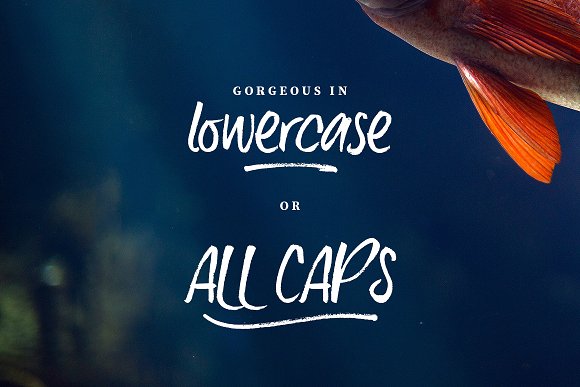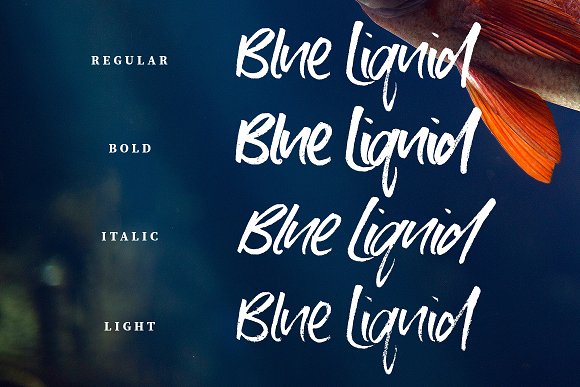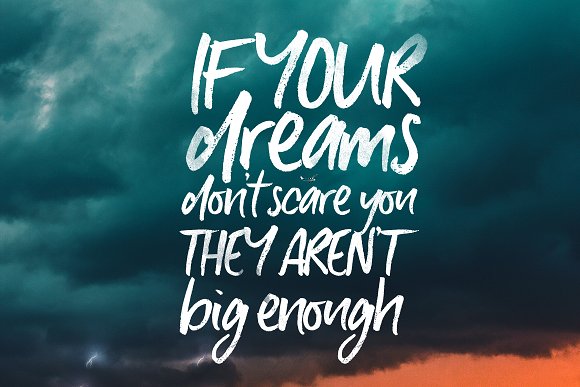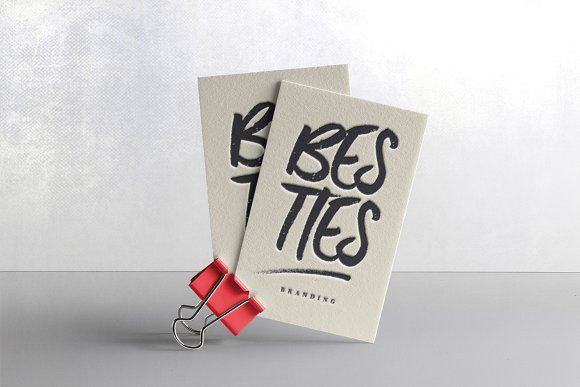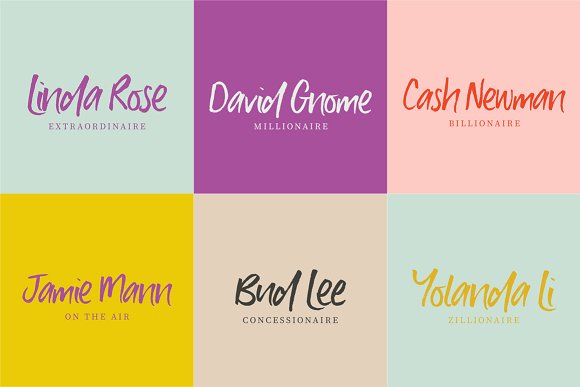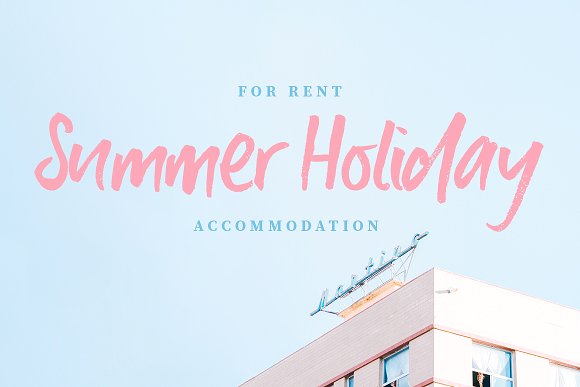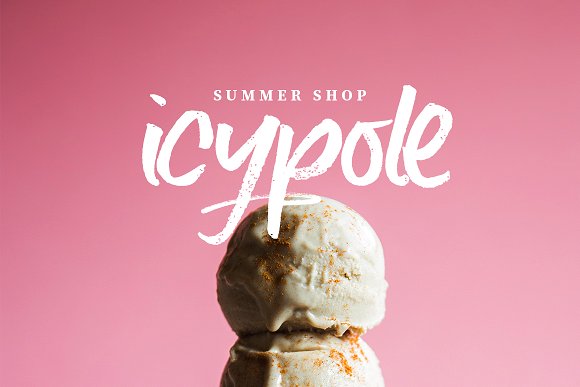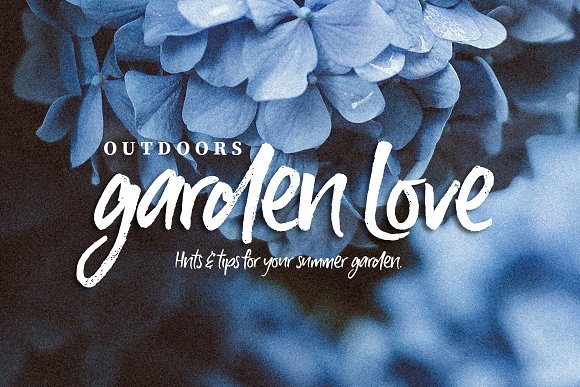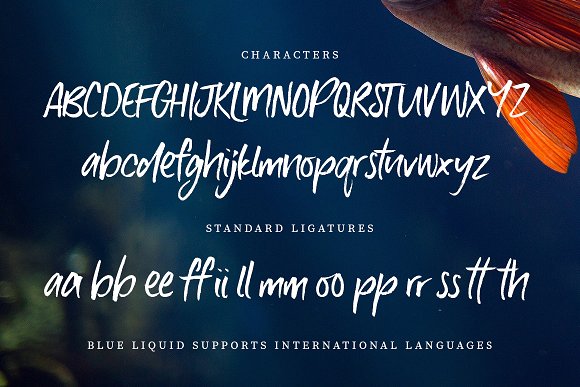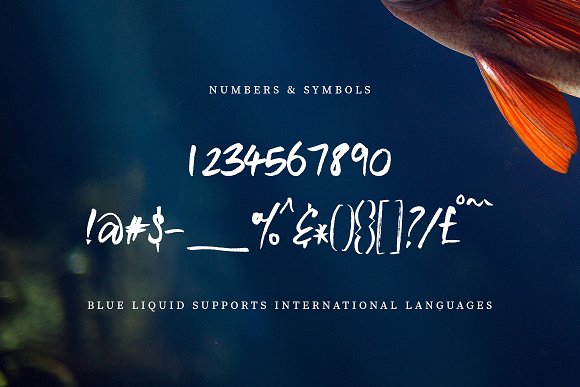
HomeScript FontsBlue Liquid Font Script Fonts Blue Liquid Font FacebookXPinterestWhatsApp Blue Liquid Font Poster 2 Blue Liquid Font Poster 3 Blue Liquid Font Poster 4 Blue Liquid Font Poster 5 Blue Liquid Font Poster 6 Blue Liquid Font Poster 7 Blue Liquid Font Poster 8 Blue Liquid Font Poster 9 Blue Liquid Font Poster 10 Blue Liquid Font Poster 11 About Blue Liquid Font Blue Liquid is a beautiful handcrafted font created by Creativeqube. DOWNLOAD NOW People also explored Degres Duo Font Someone Loving Font Halisah Font Encrypt Font Sanshiro Font Crown Font Happy St.Patrick’s Day Font Script Theory Font EXample Font 404 0 TagsBlue Liquid Font Previous articleBlushingly FontNext articleBlitzen Font LEAVE A REPLY Cancel reply Comment: Please enter your comment! Name:* Please enter your name here Email:* You have entered an incorrect email address! Please enter your email address here Website: Save my name, email, and website in this browser for the next time I comment. Personal Use Free Gaboed Personal Use Free Read more about this font Electroharmonix Personal Use Free Read more about this font Deling Personal Use Free Read more about this font Oito Personal Use Free Read more about this font BLOG Fonts That Capture the Spirit of New York City New York City is more than just a place—it’s an experience, a rhythm, a visual language... Exploring Font Trends 5 Fonts That Will Dominate Design Trends in 2026 Best Fonts for YouTube Videos: Make Your Thumbnails Stand Out